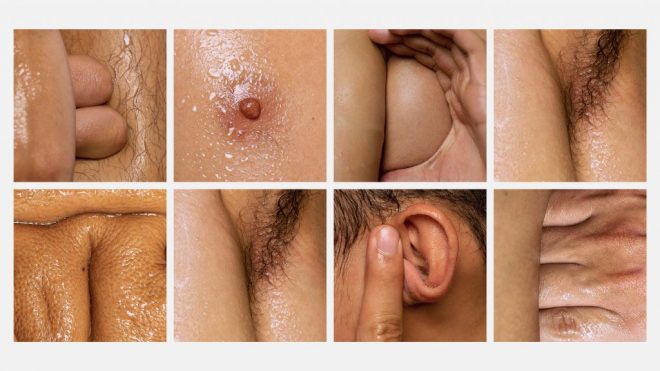
Julius Raymund Advincula makes "provocative" font from cleverly positioned body parts
Filipino graphic designer Julius Raymund Advincula sat half-naked in front of a mirror looking for letters and numbers in the folds of his skin and …